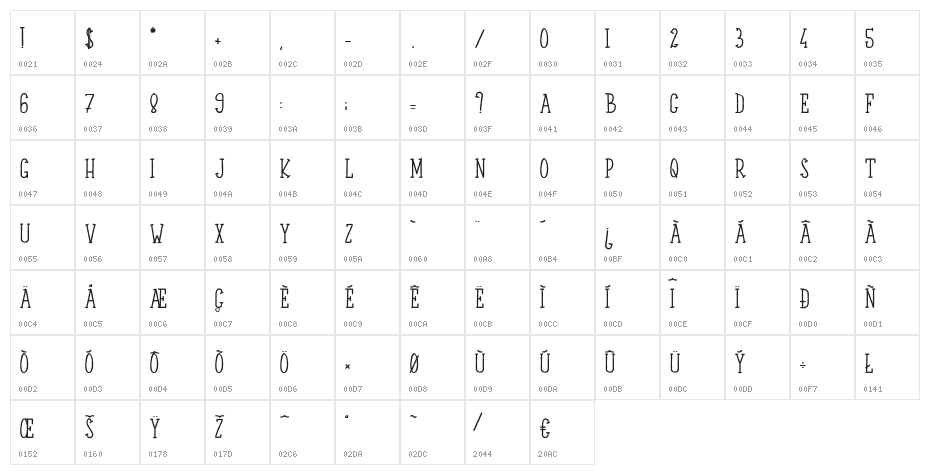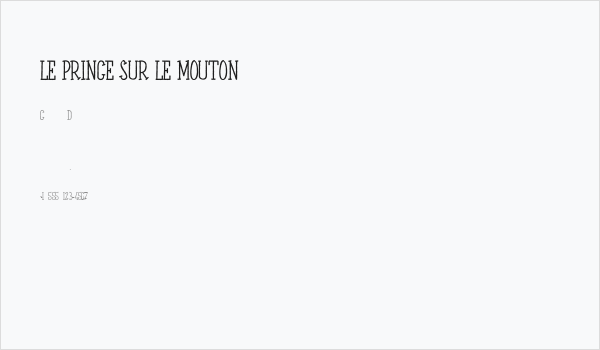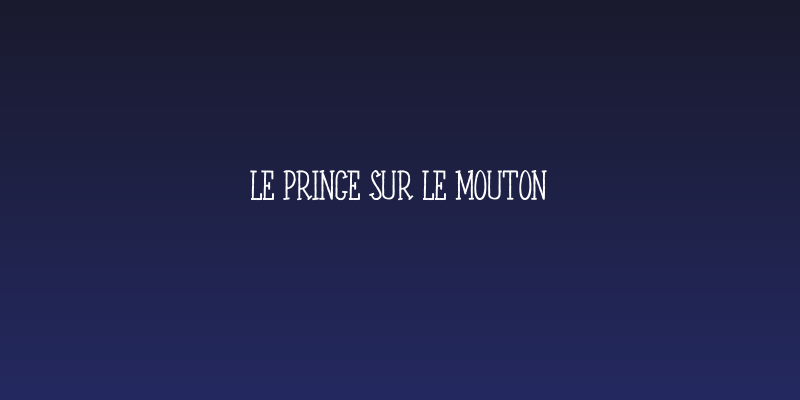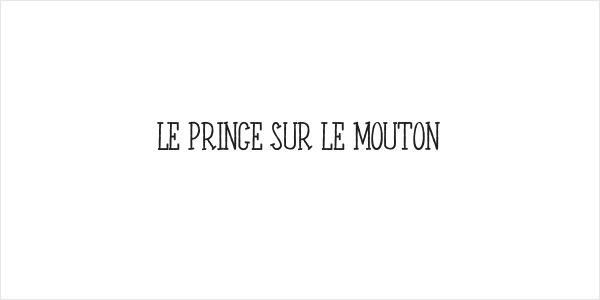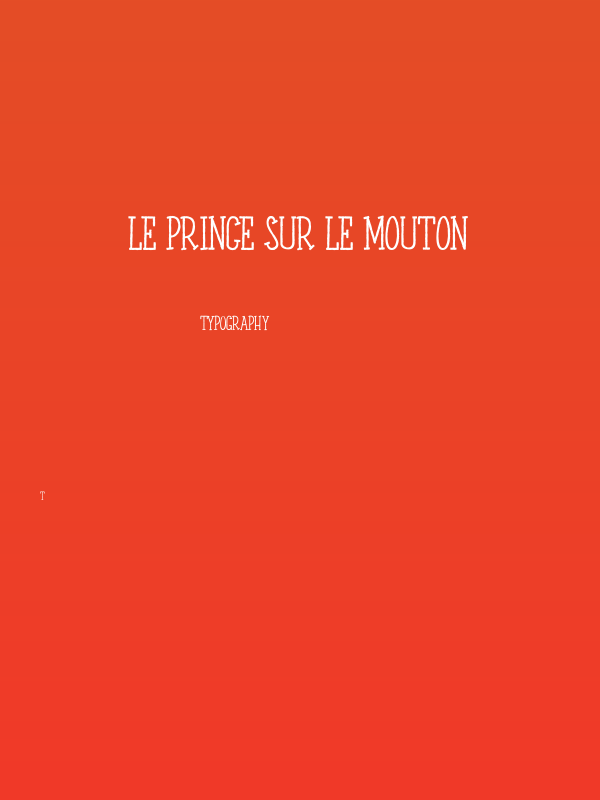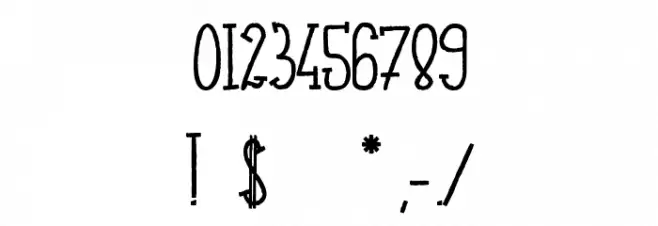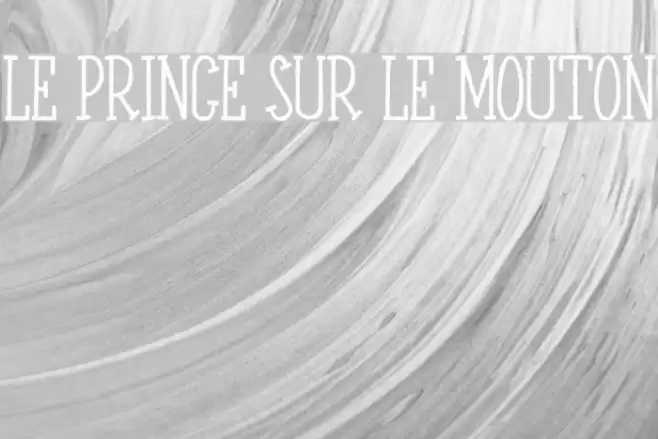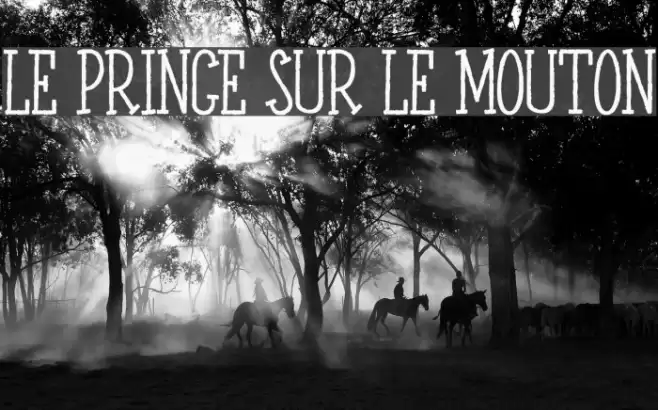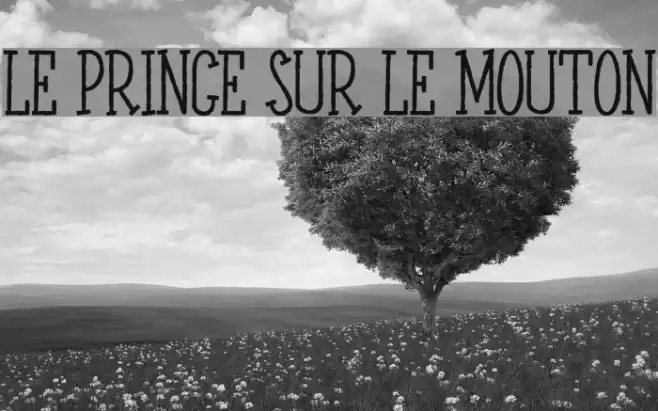
LE PRINCE SUR LE MOUTON Font
This font features a playful and whimsical design, characterized by its uneven and slightly distorted letterforms. The uppercase letters exhibit a hand-drawn quality with varying stroke widths, giving it a unique and artistic appearance. The numerals and special characters maintain this quirky style, adding to the overall charm. The font's irregularities and distinctive style make it stand out, providing a sense of creativity and individuality. It's perfect for projects that require a touch of personality and artistic flair.
| Overall Style | Whimsical, Artistic |
| Proposed Projects | Ideal for children's books, creative posters, artistic branding, and playful invitations. |